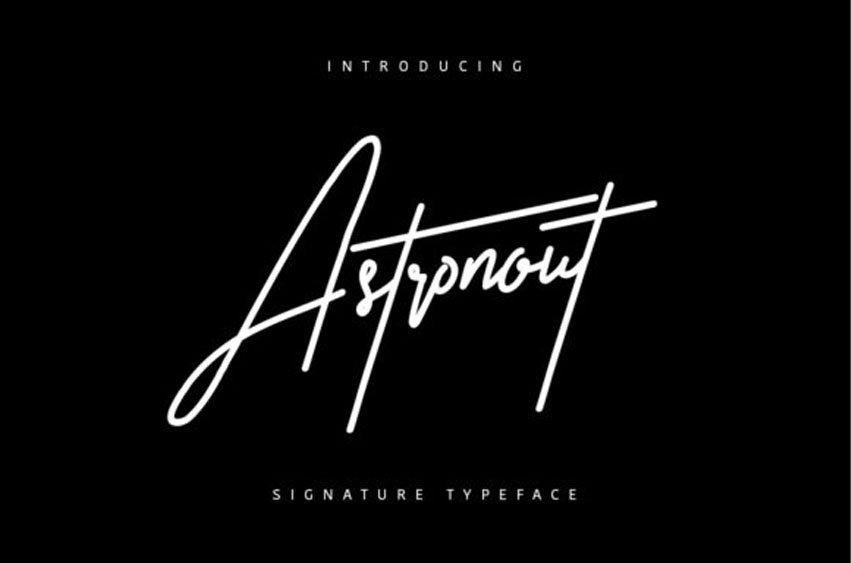
Astronout Font
Astronout Font is a thin and delicate handwritten font.
Fall in love with its incredibly versatile style and use it to create gorgeous wedding invitations, beautiful stationary art, eye-catching social media posts, and much more!